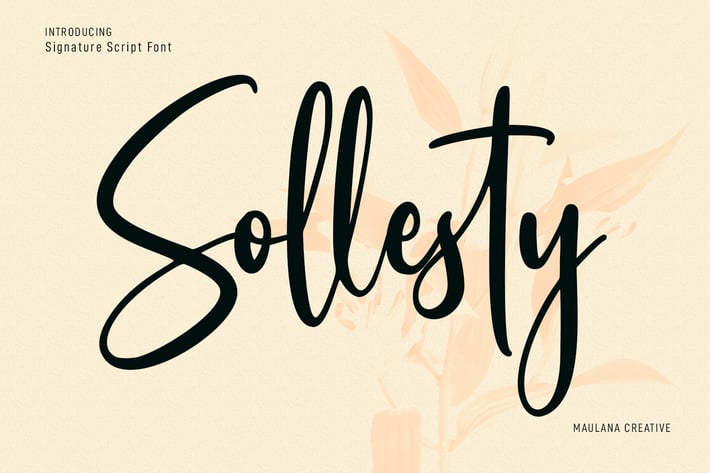
Sollesty Script Font
Sollesty is a modern signature script font. With upright contrast stroke, fun character. To give you an extra creative work. Sollesty font support multilingual more than 100+ language. This font is good for logo design, Social media, Movie Titles, Books Titles, a short text even a long text letter and good for your secondary text font with sans or serif. Make a stunning work with Sollesty font.